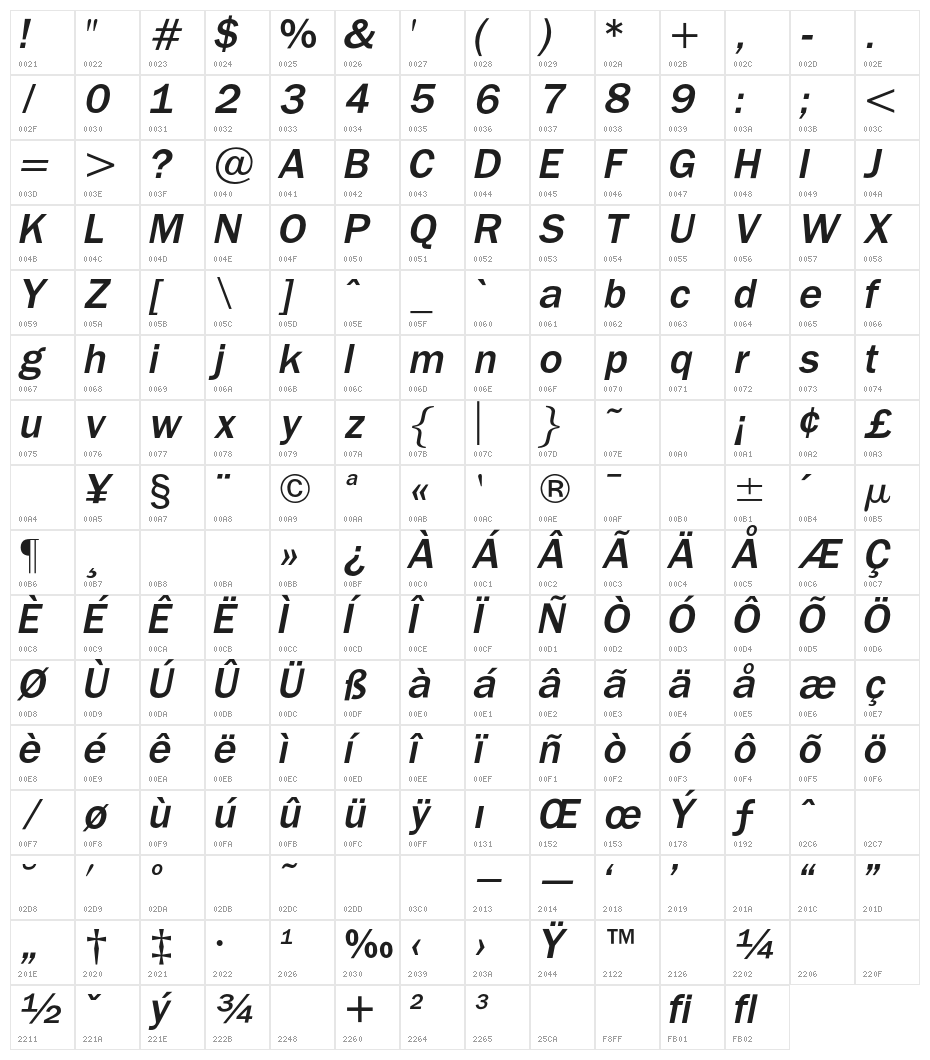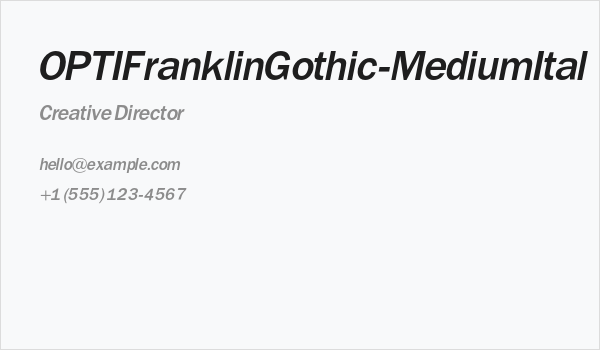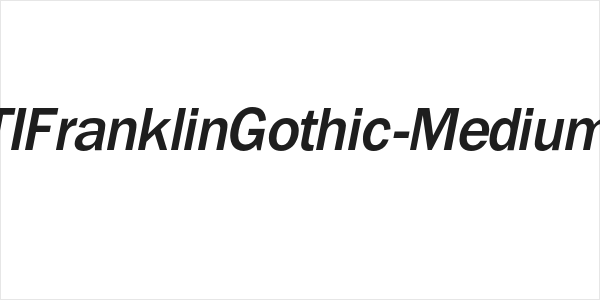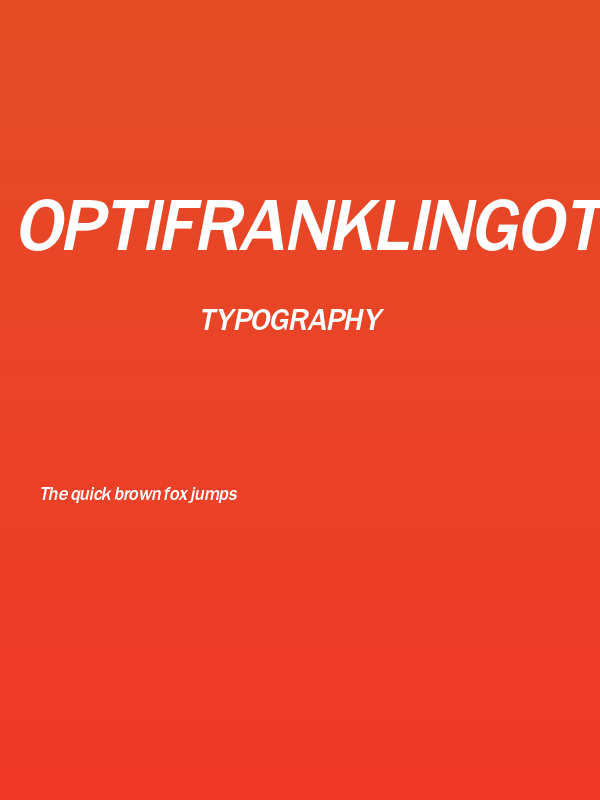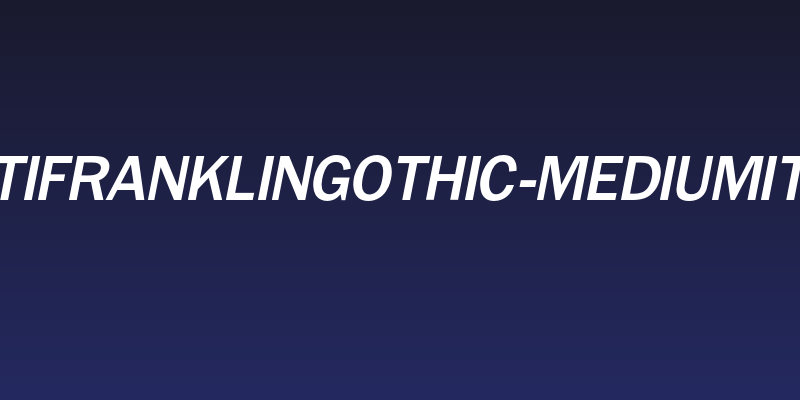
OPTIFranklinGothic-MediumItal Font
OPTIFranklinGothic-MediumItal Description
This typeface exhibits a bold and assertive style with a modern touch. The characters are slightly condensed, giving a compact appearance while maintaining readability. The italic slant adds a dynamic and forward-moving feel, suitable for conveying motion or emphasis. The strokes are consistent in thickness, providing a medium contrast that balances clarity with visual interest. The overall design is clean and professional, making it versatile for various applications.
| Use Case | Headlines, Logos, Advertising |
| Proposed Projects | Ideal for branding, advertising, headlines, and editorial design where a strong and modern presence is desired. |